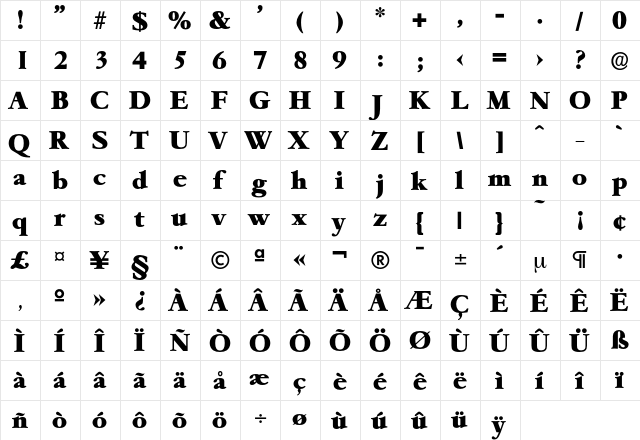
Garemond-Heavy Regular
Design Context for Garemond-Heavy Typeface
Garemond-Heavy is a composed and adaptable typeface that performs quietly and consistently across a wide range of design contexts.
Pro Tip: Use Garemond-Heavy in both headline and body roles to test its range before committing to a single application.